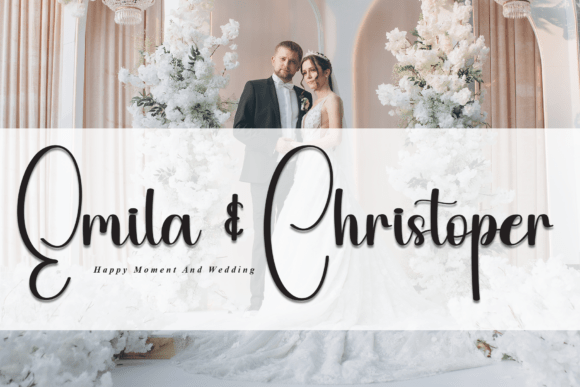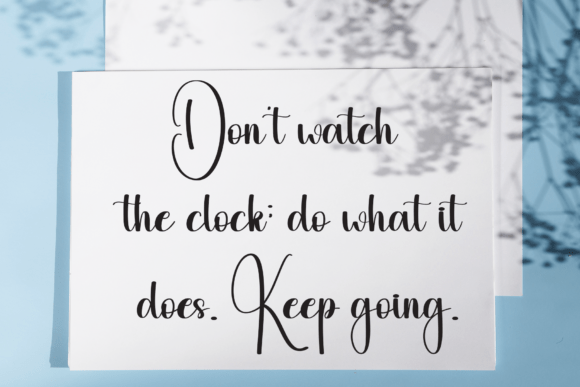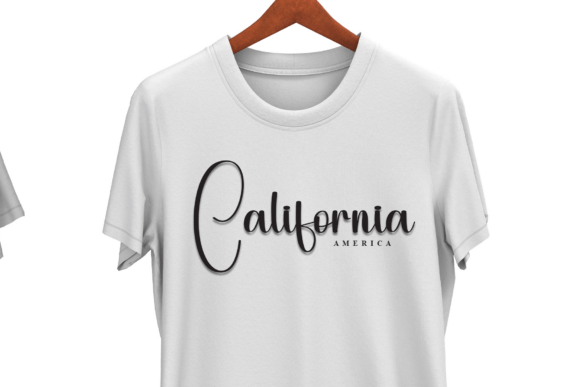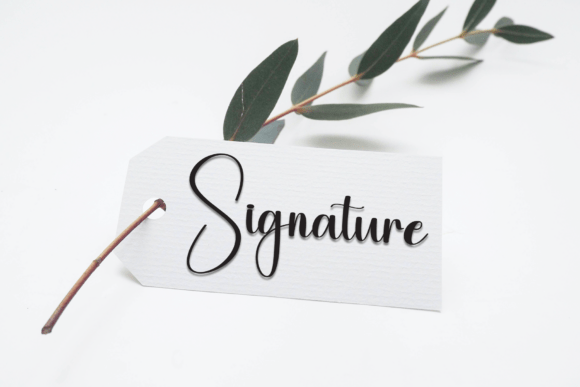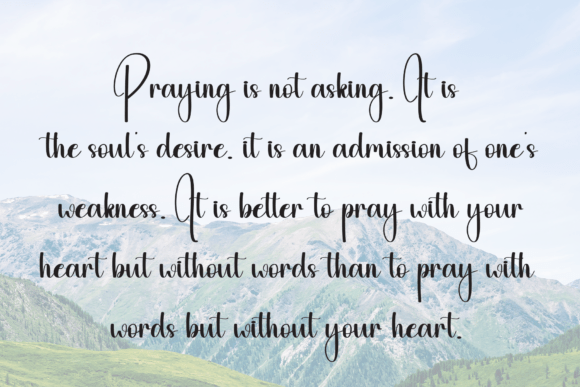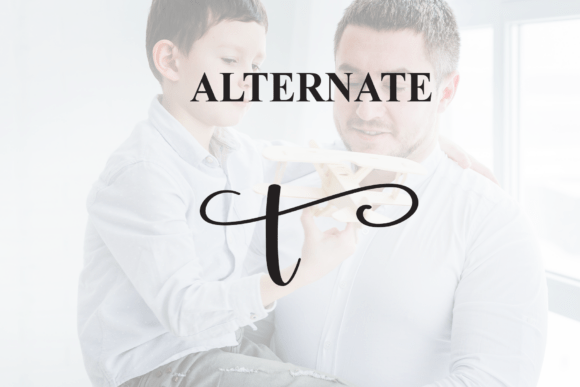
Meet Father Font: The Charming Casual Handwritten Script Font
Have you ever been in the middle of a design project, and suddenly, you’re stuck on finding the perfect font? I recall a particularly frustrating moment when I was working on a wedding invitation design. My client wanted something that was both playful and elegant, but I just couldn’t seem to find the right fit. That’s when I stumbled upon Father Font, a charmingly casual handwritten script font that has since become a staple in my design toolkit.
A Delightful Blend of Playful and Sweet
Father Font is a delightful blend of playful and sweet, making it perfect for personalizing wedding invitations, greeting cards, and other designs that require a dose of joy. This friendly and pleasing font effortlessly adds a whimsical twist to your digital designs, making every word you inscribe radiate with creativity and cheer.
- ✨ The casual, handwritten feel of Father Font makes it perfect for designs that require a personal touch.
- ✅ The font is incredibly versatile and works well for both digital and print designs.
- 🎉 The whimsical twist adds a playful touch to any design, making it perfect for creative projects.
While Father Font is an excellent choice for many designs, there are a few quirks to keep in mind:
- ⚠️ The font can be a bit tricky to read at smaller sizes, so it’s best to use it for headlines or titles.
- 🤔 Some of the glyphs and stylistic alternates can be a bit finicky, but with a little practice, you’ll get the hang of it.
The Designer Inspiration Behind Father Font
Father Font was designed with the intention of creating a font that would bring joy and whimsy to designs. The designer, inspired by the casual and playful feel of handwritten scripts, set out to create a font that would be perfect for personalizing wedding invitations, greeting cards, and other designs that require a dose of joy.
Q: What is Father Font?
A: Father Font is a charmingly casual handwritten script font perfect for designs that require a playful and sweet touch.
Q: What can I use Father Font for?
A: Father Font is perfect for personalizing wedding invitations, greeting cards, and other designs that require a dose of joy.
Q: Is Father Font easy to read?
A: While Father Font is a beautiful font, it can be a bit tricky to read at smaller sizes. It’s best to use it for headlines or titles.